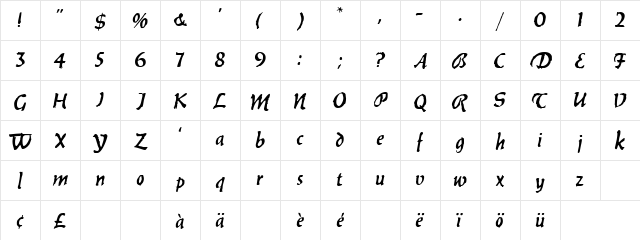
Balzac Normal Font Preview
Balzac Normal
Balzac Normal Font Details
Design Context for Balzac Typeface
Balzac is a composed and adaptable typeface that performs quietly and consistently across a wide range of design contexts.